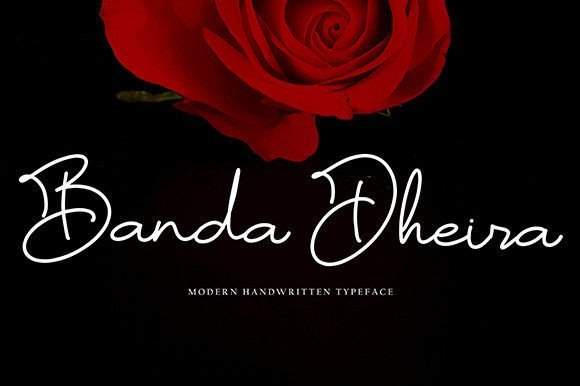
Discover the Timeless Elegance of Banda Dheira Font
There’s nothing quite like the rush of creativity that comes with starting a new design project. The blank canvas stares back at you, full of possibilities and promise. You can almost feel the excitement building as you begin to envision the final product – the colors, the textures, the typography. And then, it hits you: the perfect font to bring your vision to life.
Banda Dheira Font is a flowing handwritten font that adds an elegant touch to any project. Its distinct and timeless style is sure to captivate your audience and leave a lasting impression. Whether you’re a seasoned designer or just starting out, this versatile font is a valuable addition to your toolkit. With Banda Dheira Font, you’ll be able to create spectacular designs that truly stand out from the crowd.
Banda Dheira Font Key Features
- Unique Characteristics: Banda Dheira Font features a unique blend of traditional and modern design elements, with intricate details and ornate flourishes that set it apart from other fonts.
Banda Dheira Font Review
I recently had the chance to work with the Banda Dheira font, and I must say it’s a unique and interesting addition to any design project. Here are my thoughts on what works well and what could be improved.
- **Versatility**: Banda Dheira is a highly versatile font that can be used for a wide range of applications, from headlines to body text.
- **Legibility**: The font is highly legible, making it perfect for long blocks of text or for use in digital media.
- **Creative Touch**: The font’s unique design elements add a creative touch to any design project, making it stand out from the crowd.
- **Limited Character Set**: Banda Dheira has a relatively small character set, which may limit its use in certain situations.
- **Not Suitable for All Designs**: While the font is versatile, it may not be the best choice for all design projects, particularly those that require a more traditional or formal look.
Overall, I think Banda Dheira is a great addition to any designer’s toolkit, but it’s essential to use it judiciously and consider its limitations when selecting a font for a project.
Tips for Getting the Most Out of Banda Dheira Font
For the best results, use Banda Dheira font in combination with bold or italic styles to create visual interest.
Banda Dheira font is ideal for:
- Print materials, such as business cards and brochures
Alternatives to Banda Dheira Font
The Great Vibes Font is a beautiful, handwritten script font that can be used for titles, headings, and quotes. It’s perfect for creating a unique and elegant look. When to use: For creative, artistic projects, or when you want to add a touch of personality to your design.
Great Vibes Font compares to Banda Dheira Font as it has a similar, handwritten feel but with a more refined and polished appearance.
The Carolyna Pro Font is a modern, elegant script font that can be used for titles, headings, and body text. It’s perfect for creating a sophisticated and stylish look. When to use: For luxury, high-end projects, or when you want to add a touch of sophistication to your design.
Carolyna Pro Font compares to Banda Dheira Font as it has a more refined and polished appearance, making it suitable for formal projects.
The Alex Brush Font is a beautiful, handwritten script font that can be used for titles, headings, and quotes. It’s perfect for creating a unique and elegant look. When to use: For creative, artistic projects, or when you want to add a touch of personality to your design.